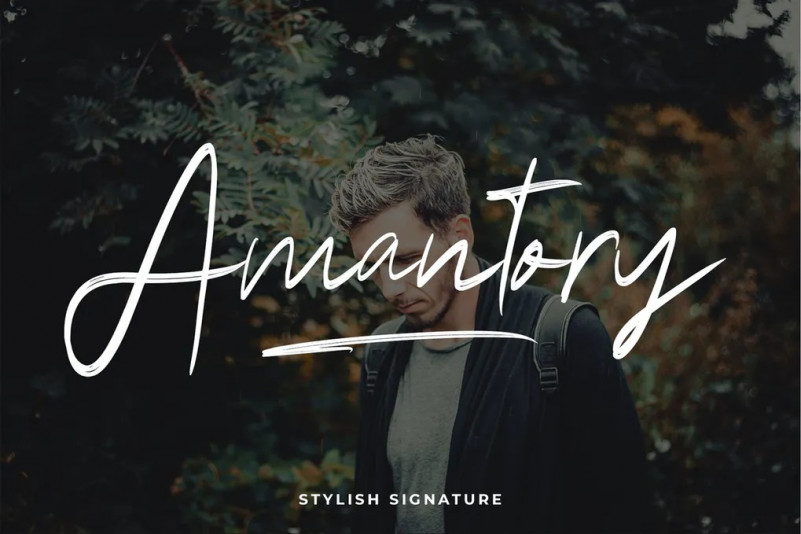
Amantory Font
Amantory is brush signature that contain lowercase, uppercase, symbol, and also support multi language. Amantory is perfect for branding projects, logo, wedding designs, social media posts, advertisements, product packaging, product designs, label, photography, watermark, invitation, stationery and any projects that need handwriting taste.